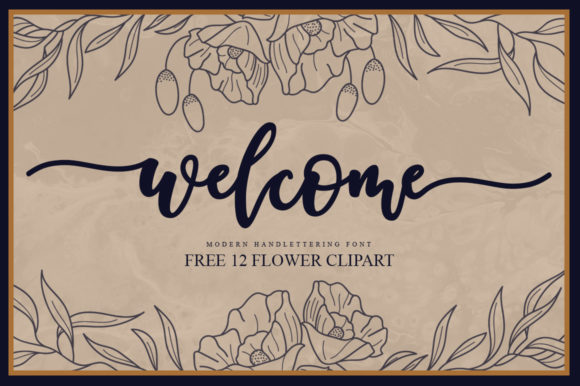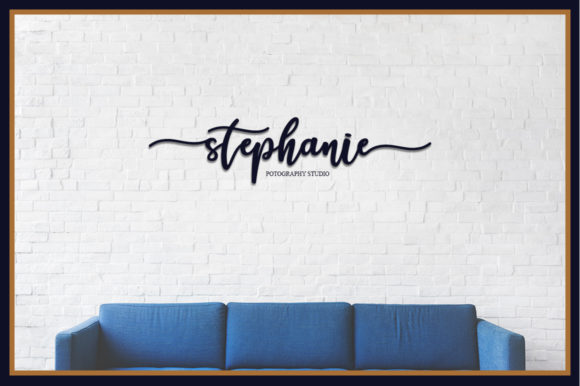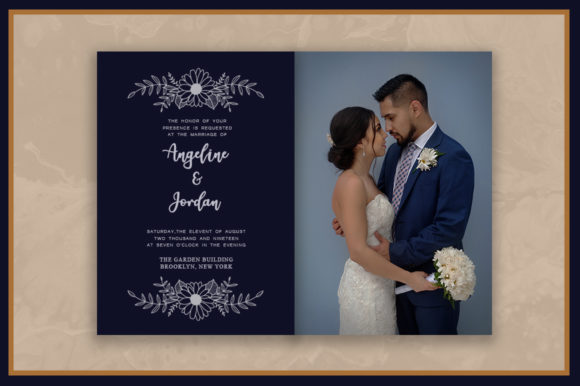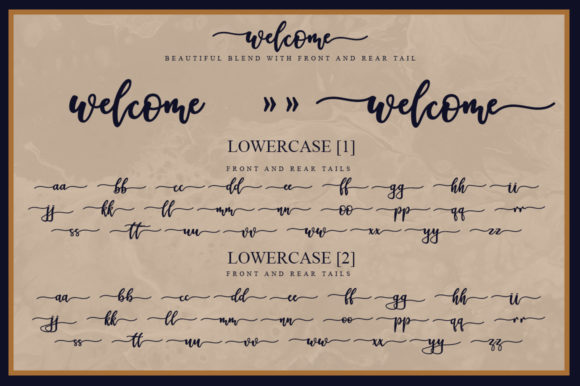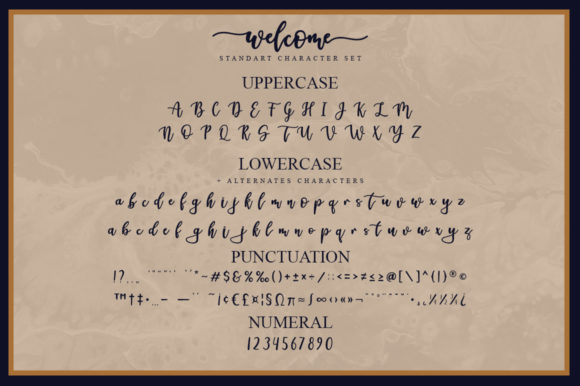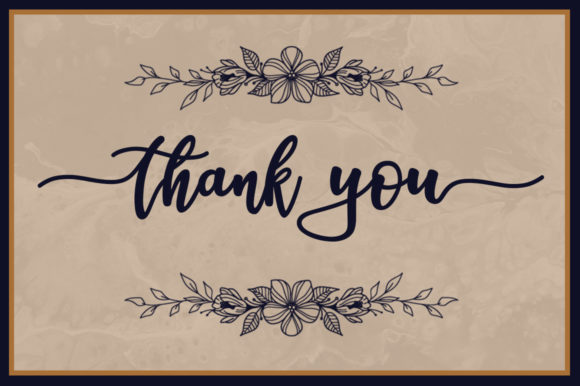
Welcome Script Font
About Welcome Script Font
Welcome is a sweet and charming handwritten font, full of authenticity. Fall in love with this stunning set of flower clip arts included in this one-of-a-kind download!